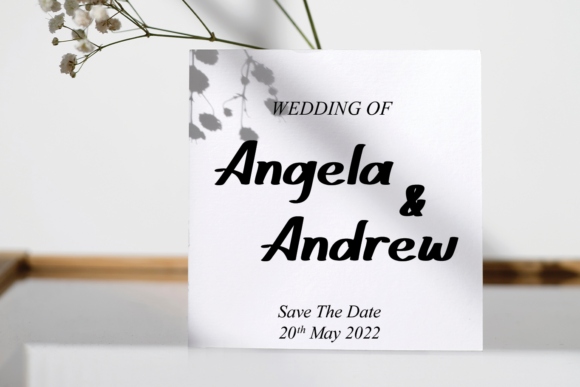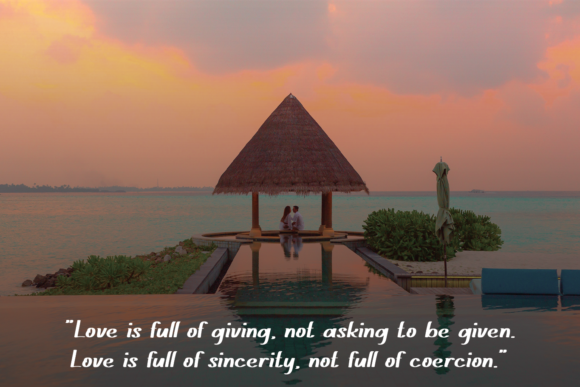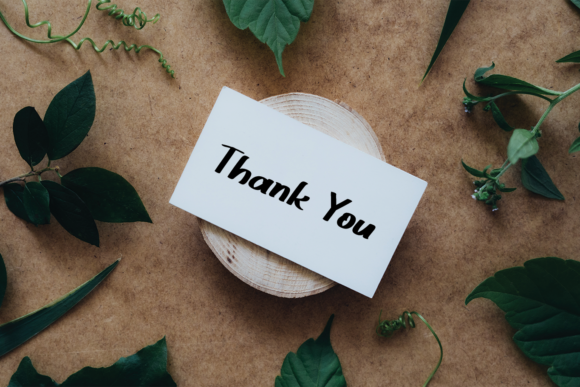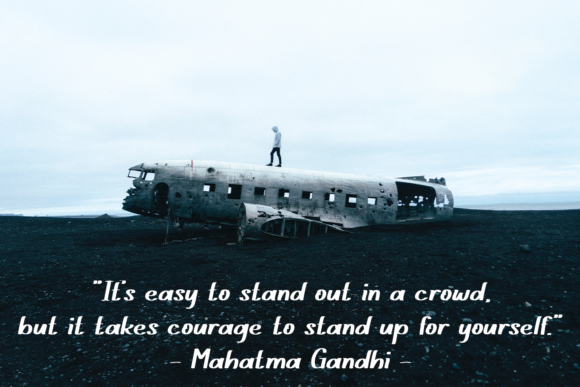
Lucky Font
About Lucky Font
“Lucky” is a flowing and graceful script font that exudes a sense of charm and elegance. Its ravishing style makes it a perfect choice for creating gorgeous wedding invitations, beautiful stationary art, and eye-catching social media posts.
The beauty of “Lucky” lies in its fluidity and grace. Each stroke flows seamlessly into the next, creating a sense of continuity and harmony. This makes “Lucky” not just aesthetically pleasing, but also easy to read.
One of the standout features of “Lucky” is its versatility. It can be used to create a wide range of designs, from formal invitations to casual social media posts. This adaptability makes “Lucky” a valuable tool for designers, allowing them to express their creativity in various ways.
In conclusion, “Lucky” is more than just a font. It’s a design tool that enhances your creativity and helps you create designs that are not only beautiful but also impactful. With “Lucky”, you’re not just designing; you’re creating experiences. And in the world of design, that’s what truly matters. So, fall in love with “Lucky” and let it take your designs to new heights.